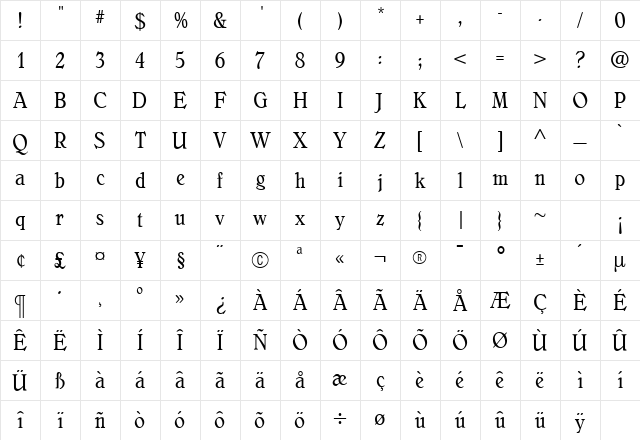
BelliniOriginalCondensed is a composed and adaptable typeface that performs quietly and consistently across a wide range of design contexts. Its narrow stance lets it pack a punch even in space-constrained designs.
Pro Tip: Use BelliniOriginalCondensed in both headline and body roles to test its range before committing to a single application.